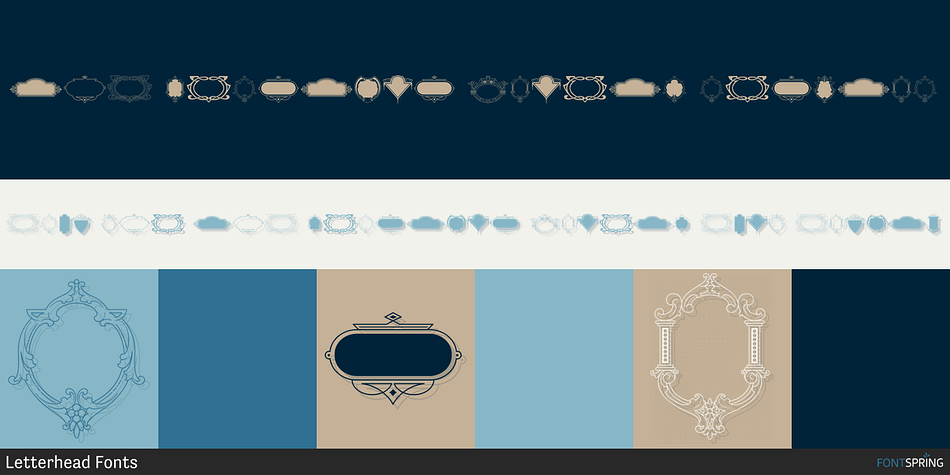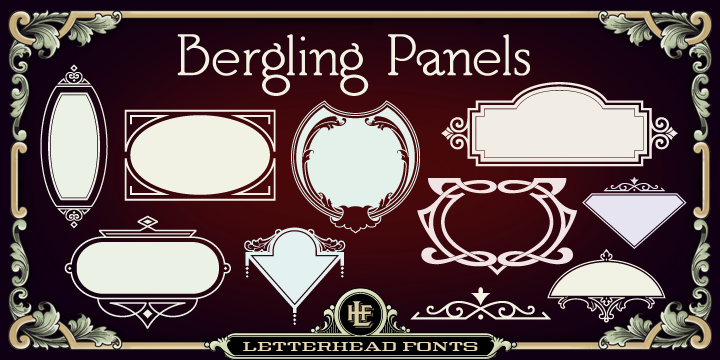
Designed by John Davis, LHF Bergling Panels is a dingbat font published by Letterhead Fonts.
LHF Bergling Panels Regular
An assortment of 42 expertly-drawn decorative vector panels in the form of a single font. Inspired by early 1900ís artist J.M. Bergling. Each letter generates a different design.